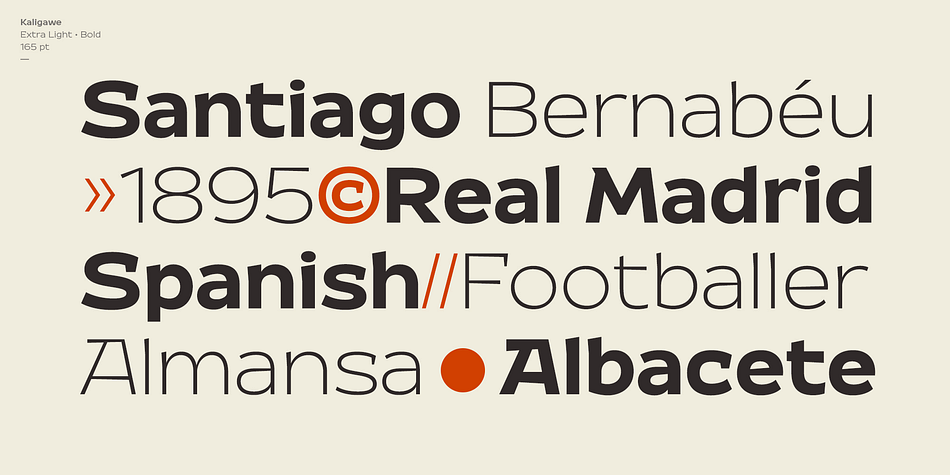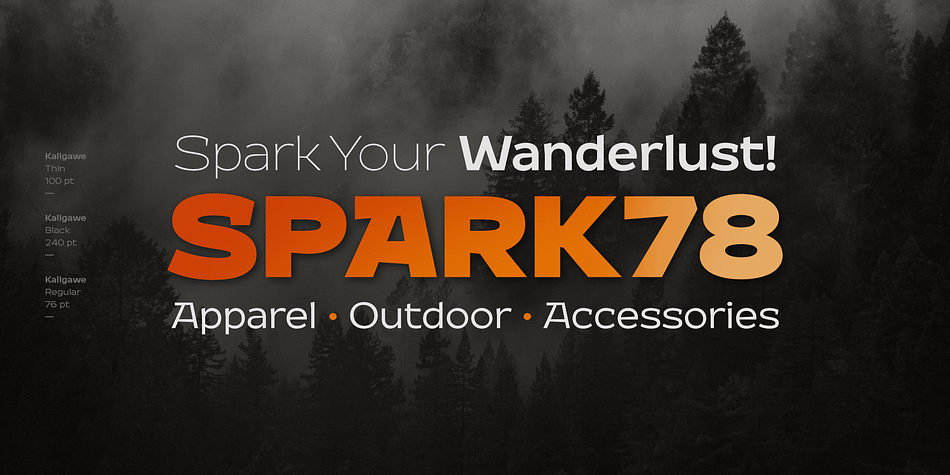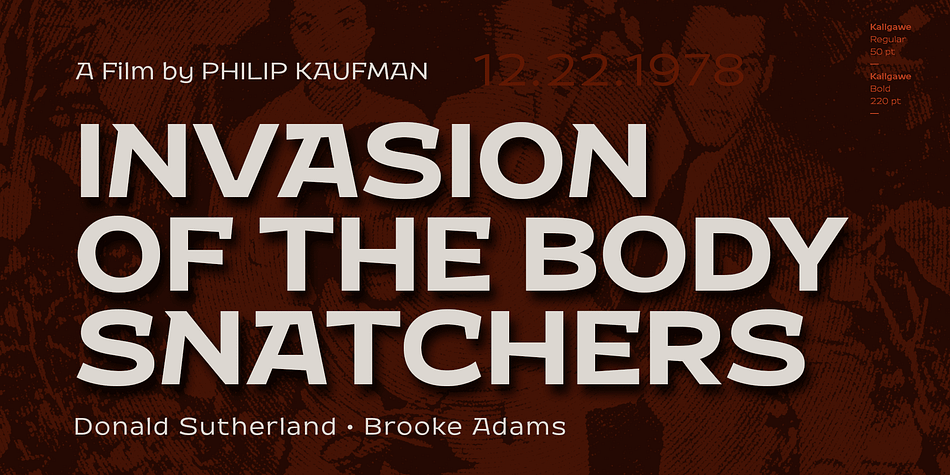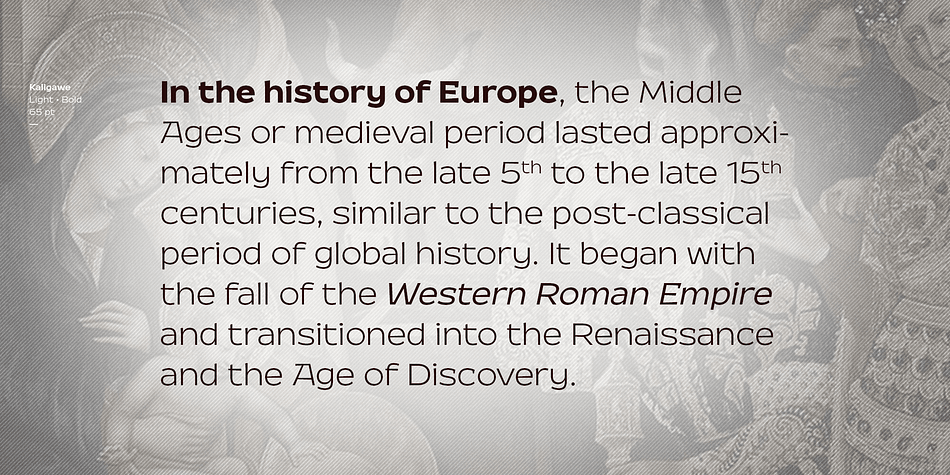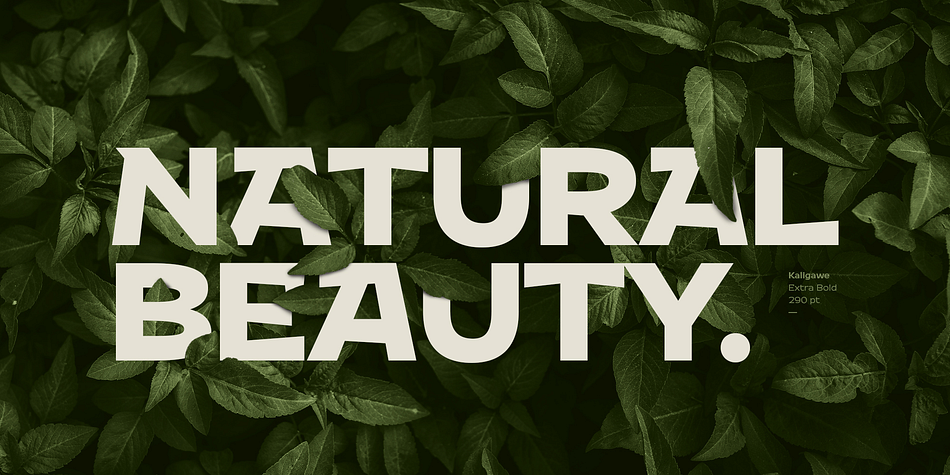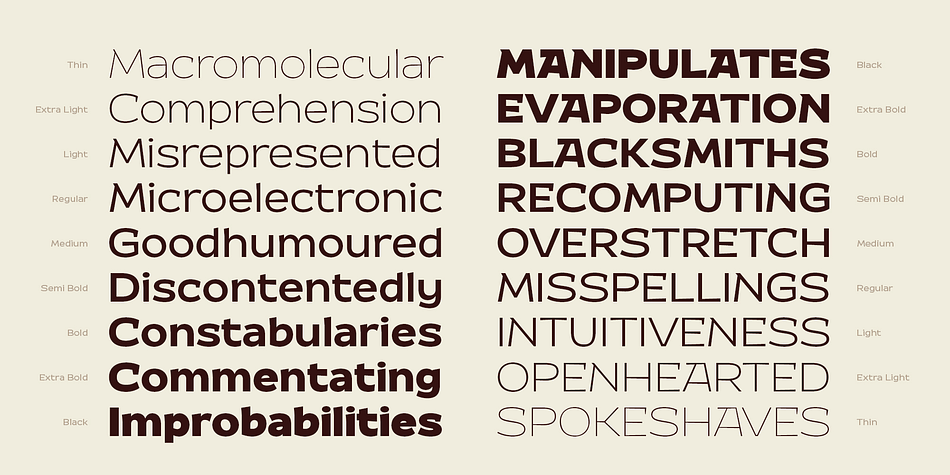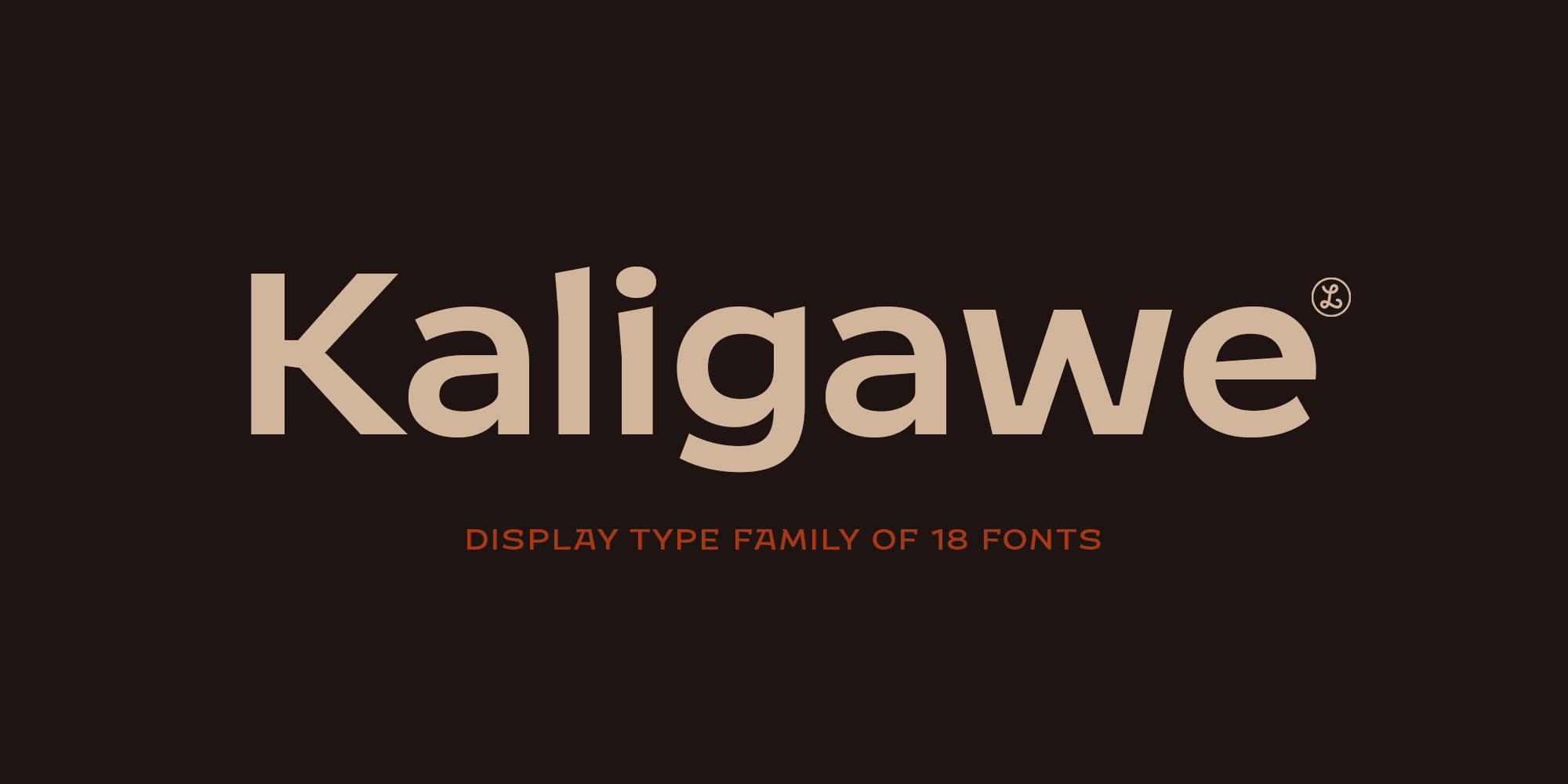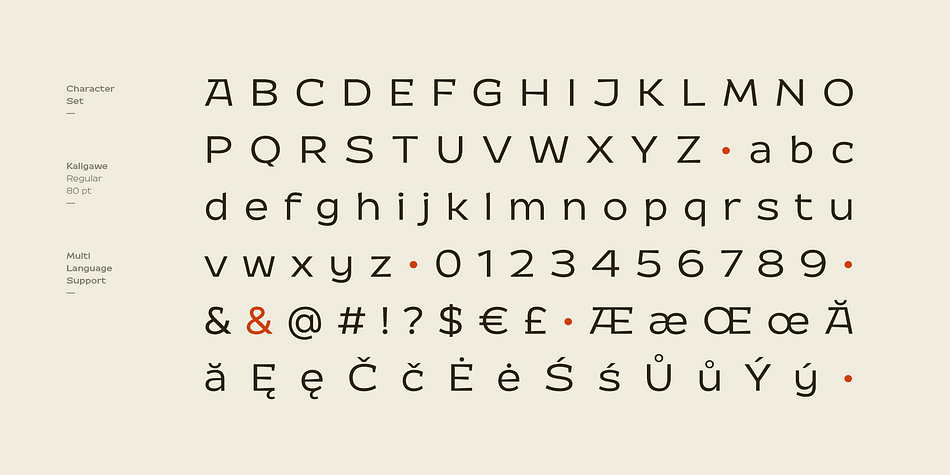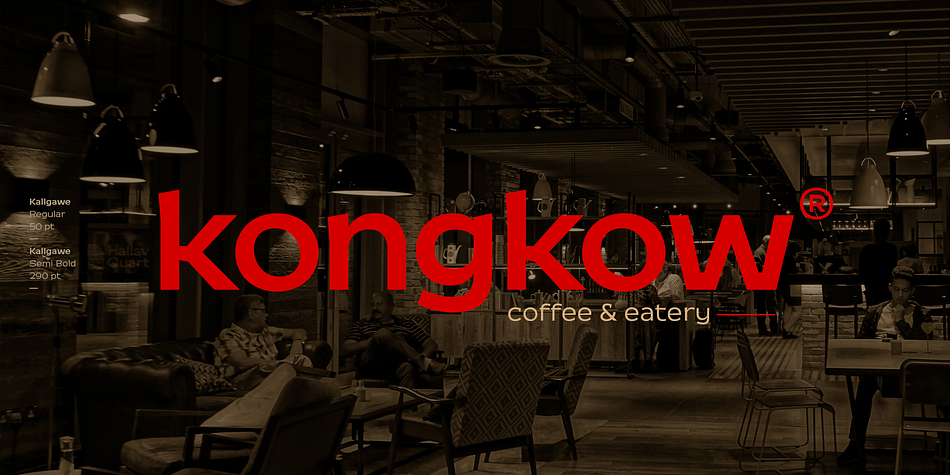
Kaligawe
Kaligawe is a sans serif font family. This typeface has eighteen styles and was published by Locomotype.
Introducing Kaligawe, the perfect font for designers looking to make a bold statement with their work. This display sans font boasts a unique blend of mediaeval and sans-serif characteristics that will give your designs a distinct edge. With nine weights available, from Thin to Black, you’ll have plenty of options to choose from when it comes to creating eye-catching posters, attention-grabbing headlines, captivating movie titles, and stylish packaging.
What sets Kaligawe apart from other fonts is its ability to combine old-world charm with modern style. Its mediaeval touches provide a classic, timeless feel, while its strong sans-serif characteristics give it a contemporary edge. The result is a font that can be used for a wide range of design projects, whether you’re creating something with a vintage vibe or a more modern look.